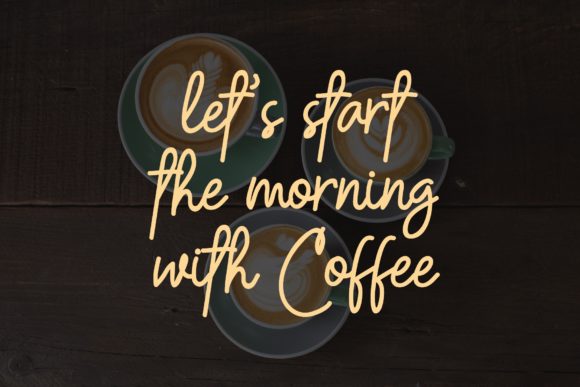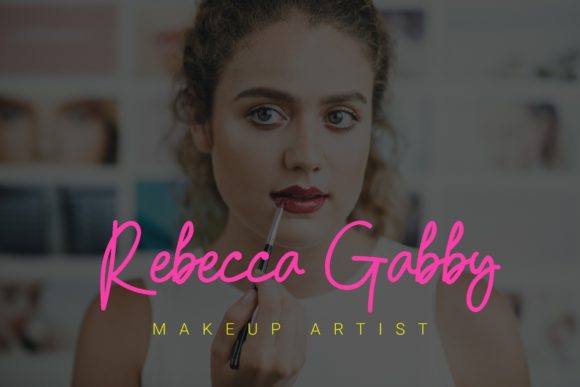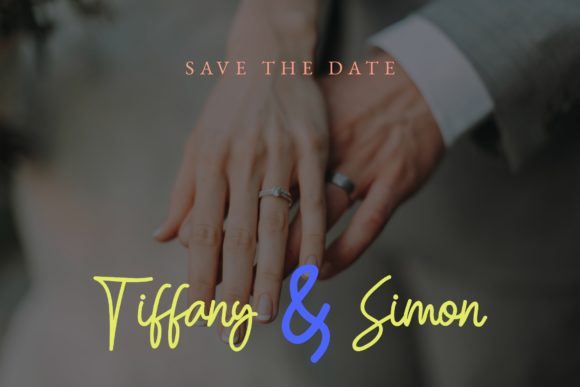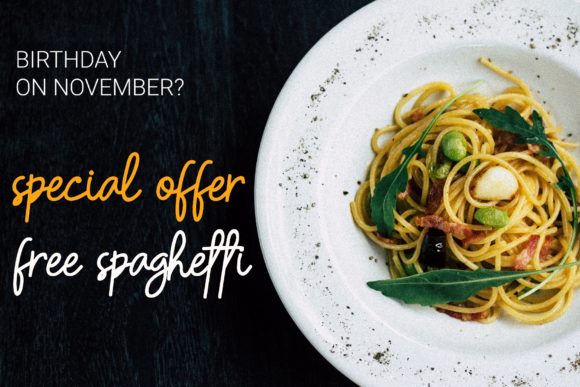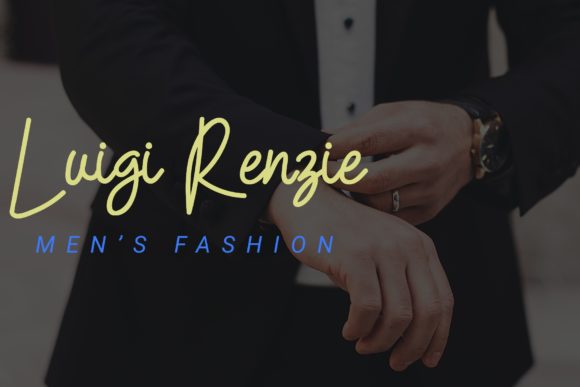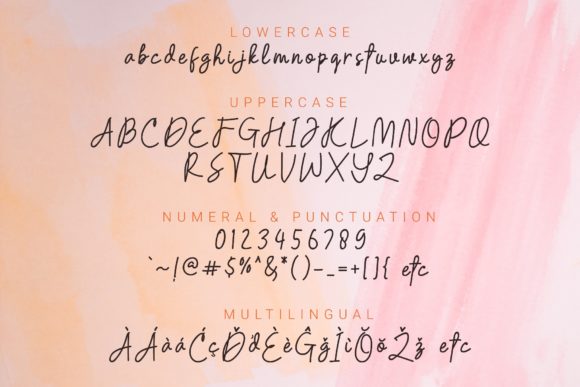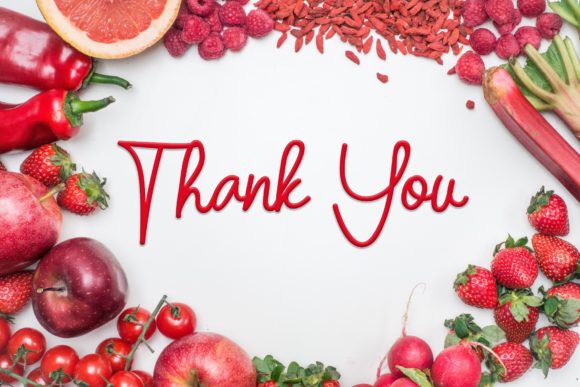
Lafentha Font
About Lafentha Font
Lafentha is romantic and sweet, but also casual. This beautiful script font has a wide range of applications ranging from hobby crafting to professional projects, and is guaranteed to add a playful touch to your next design.